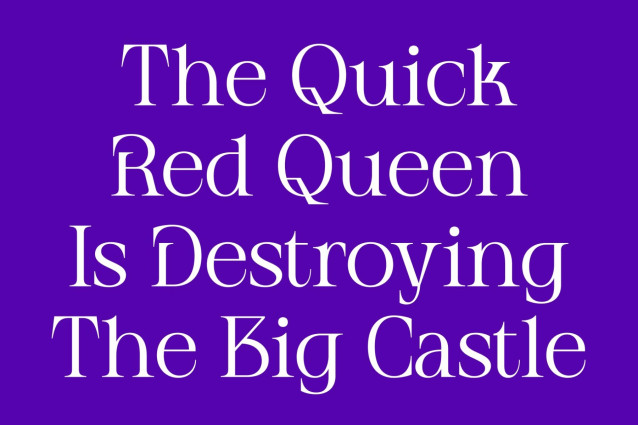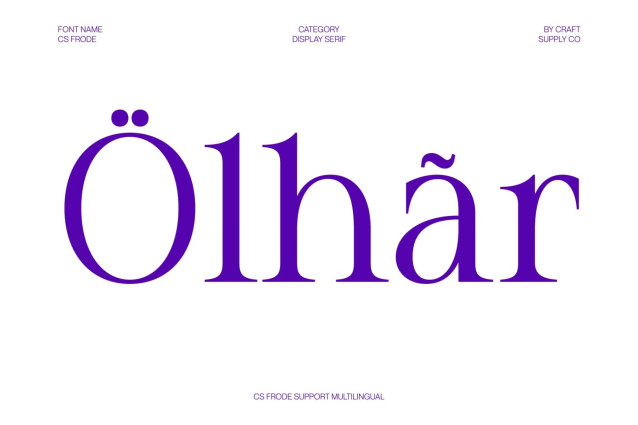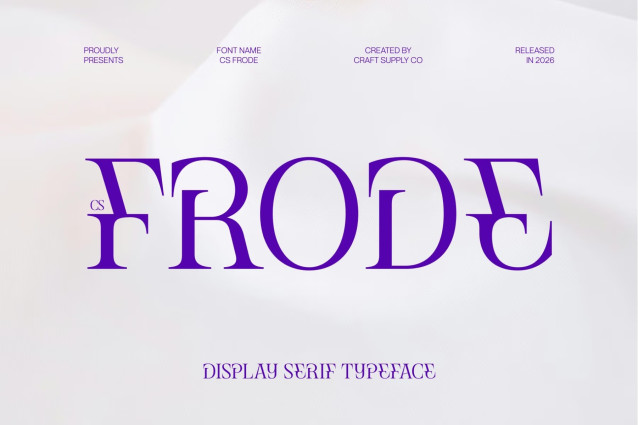
CS Frode – Modern Serif Font
CS Frode – Modern Serif with Luxurious Contemporary Edge
Modern Serif with Stylish Contemporary Character
This is a modern serif font designed to combine elegance with a bold contemporary attitude. Featuring a stylish structure and refined proportions, this typeface creates a luxurious visual presence while maintaining a fresh and modern appeal. It is crafted for designers who seek typography that feels sophisticated, unique, and fashion-forward.
Pointed Details with Distinctive Style
The defining feature of this font lies in its sharp pointed ends that add character and visual tension to every letterform. These elegant details create a striking contrast between softness and precision, giving the font a distinctive personality that feels both modern and artistic. The result is typography that captures attention while remaining refined and readable.
Luxury Feel with Fresh Modern Energy
This font balances timeless serif elegance with contemporary styling, creating a font that feels premium yet approachable. Its clean construction and stylish curves allow it to adapt beautifully across modern layouts, delivering a fresh visual tone that feels confident and expressive.